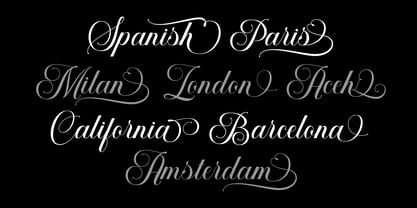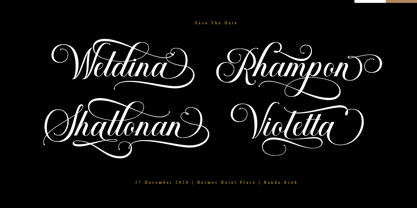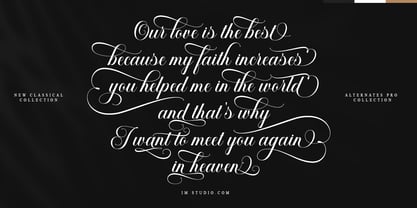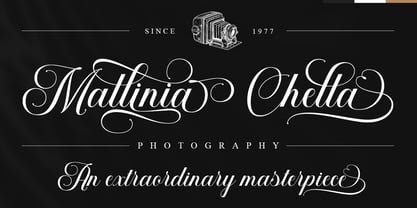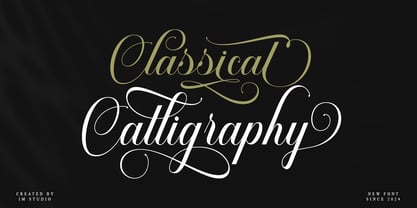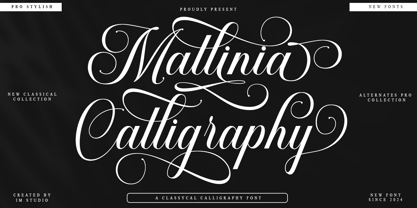
Mallinia Calligraphy
by IM Studio
The Mallinia Calligraphy Font Family was designed by Ikhsan Maulana and published by IM Studio. Mallinia Calligraphy contains 1 styles. More about this family
Mallinia Calligraphy is a modern calligraphy font that is elegant and charming. This font is designed with smooth brush strokes, soft curves, and details that strengthen the romantic and artistic impression. Each letter has a natural thick and thin line characteristic, creating a dynamic and luxurious appearance.
Suitable for various creative purposes, such as wedding invitations, brand logos, greeting cards, to social media designs, Mallinia Calligraphy provides a personal and classy touch. This font is usually equipped with ligature and swash features for design flexibility, allowing users to create unique variations in each project.
With an aesthetic that combines classic and modern impressions, Mallinia Calligraphy is an ideal choice for designers who want to add a touch of beauty and luxury to their work.
Designers: Ikhsan Maulana
Foundry: IM Studio